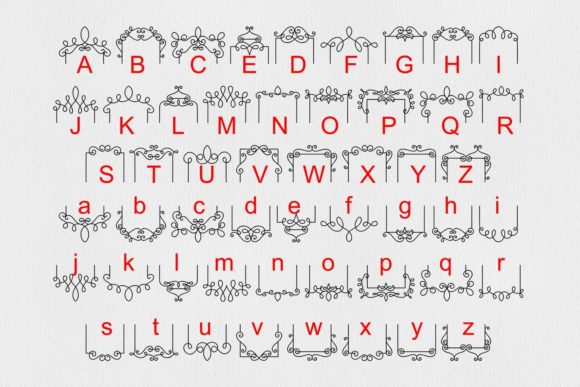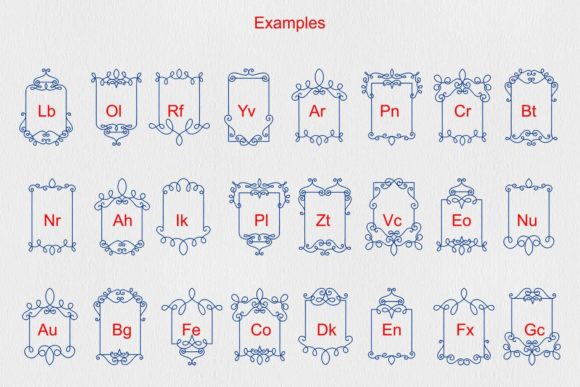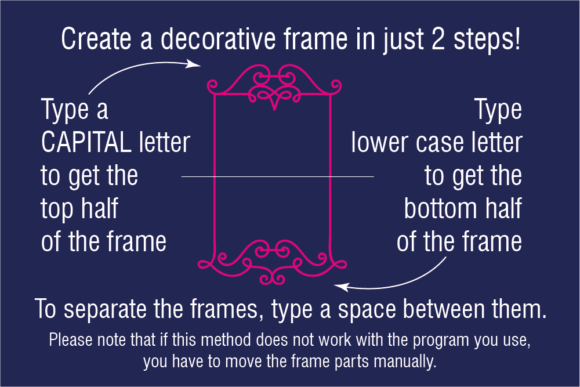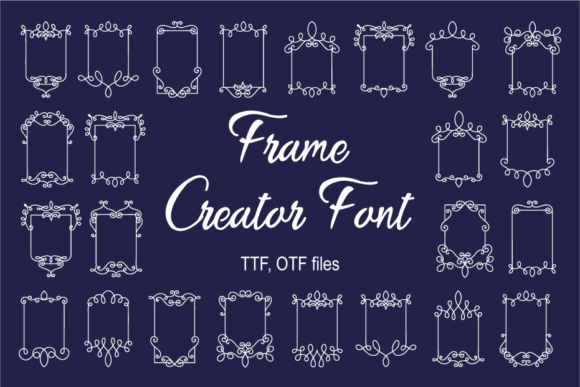
Introduction to Frame Creator Font
Frame Creator is a useful and highly detailed dingbats font.
Whether you’re using it for crafting, digital designing, presentations or greeting cards making, it’s perfect .
Key Features of Frame Creator Font
Why Choose Frame Creator Font?
Frame Creator Font offers exceptional quality and versatility, making it a valuable addition to your design toolkit. Whether you’re creating for personal projects or commercial use, Frame Creator Font delivers professional results.